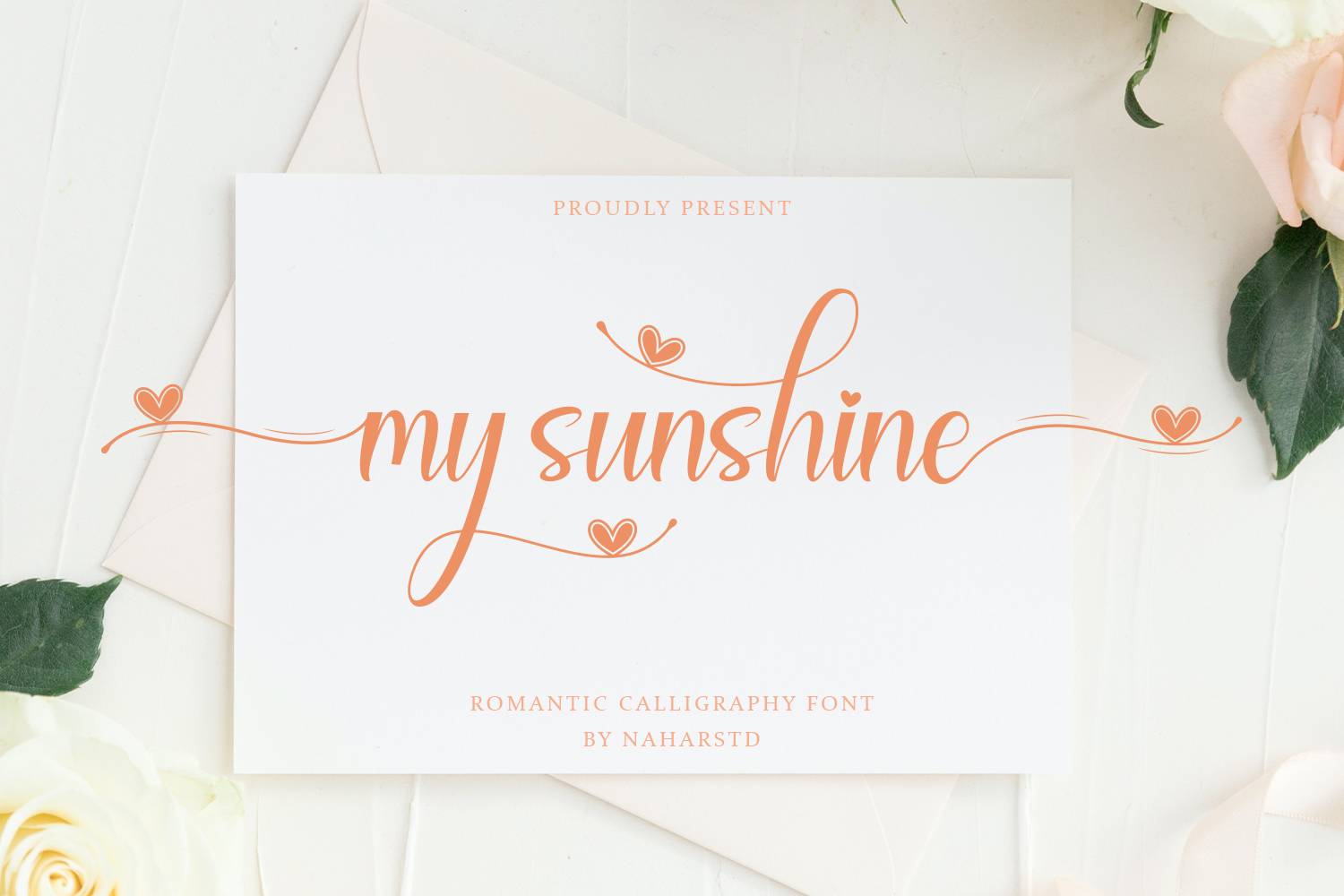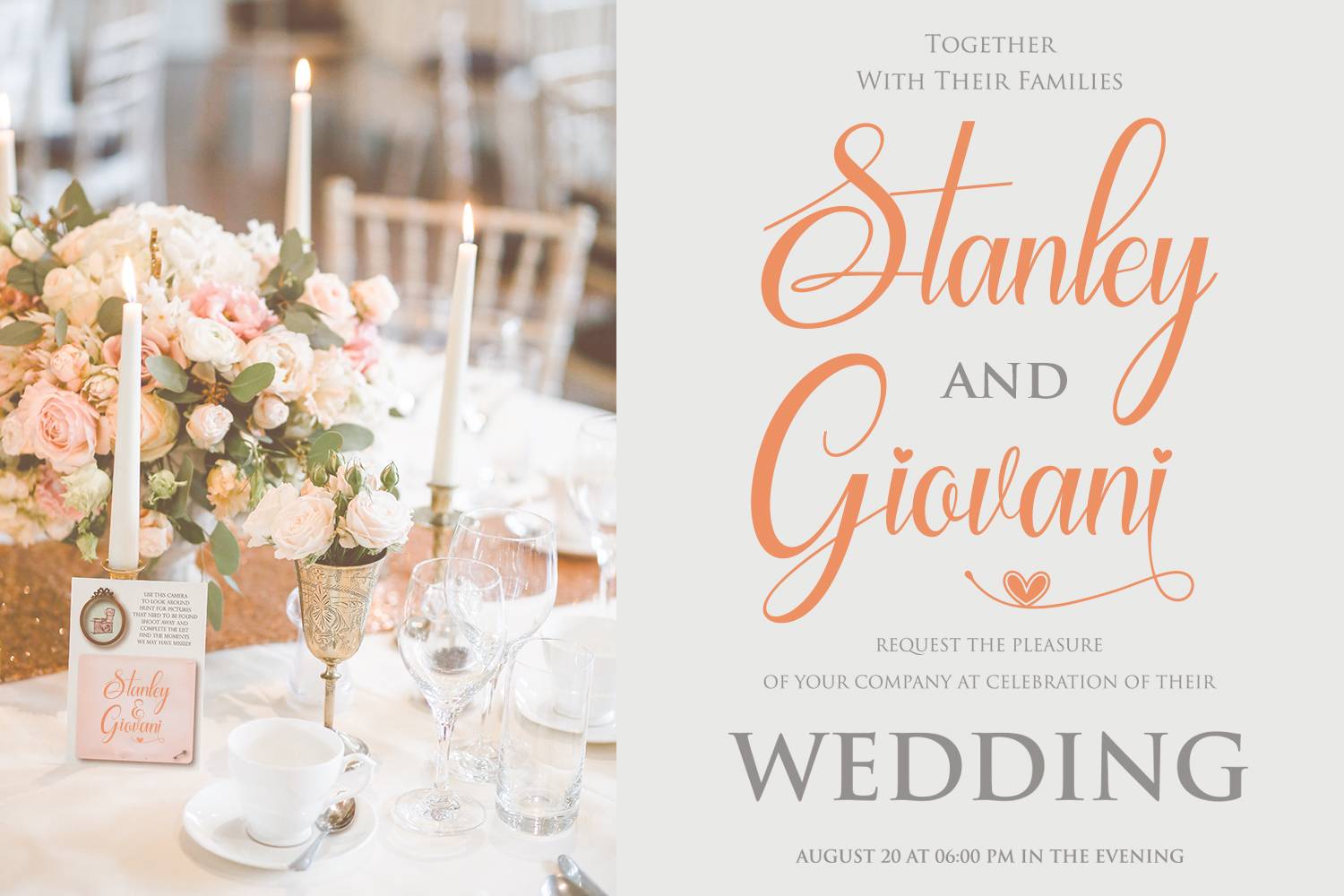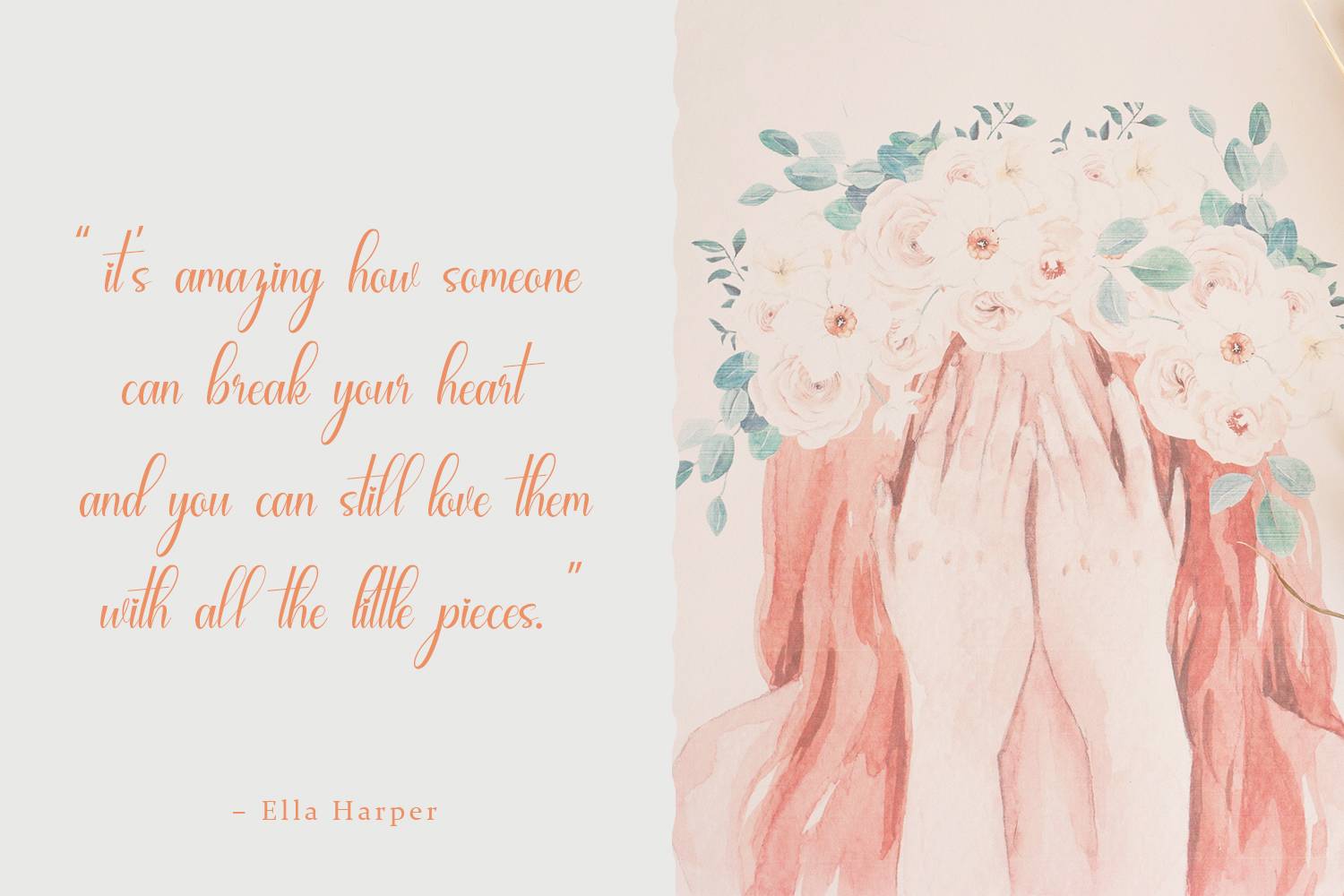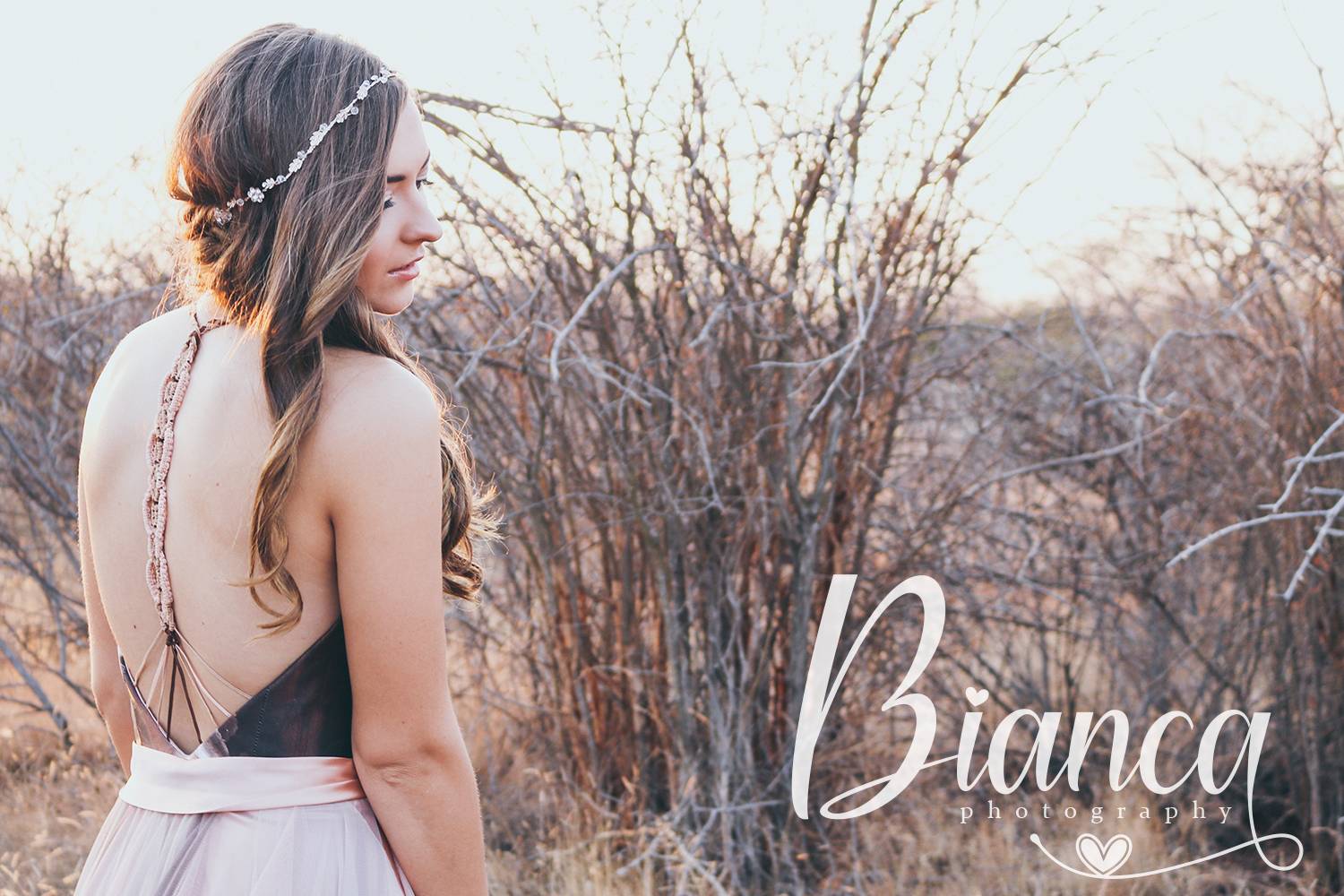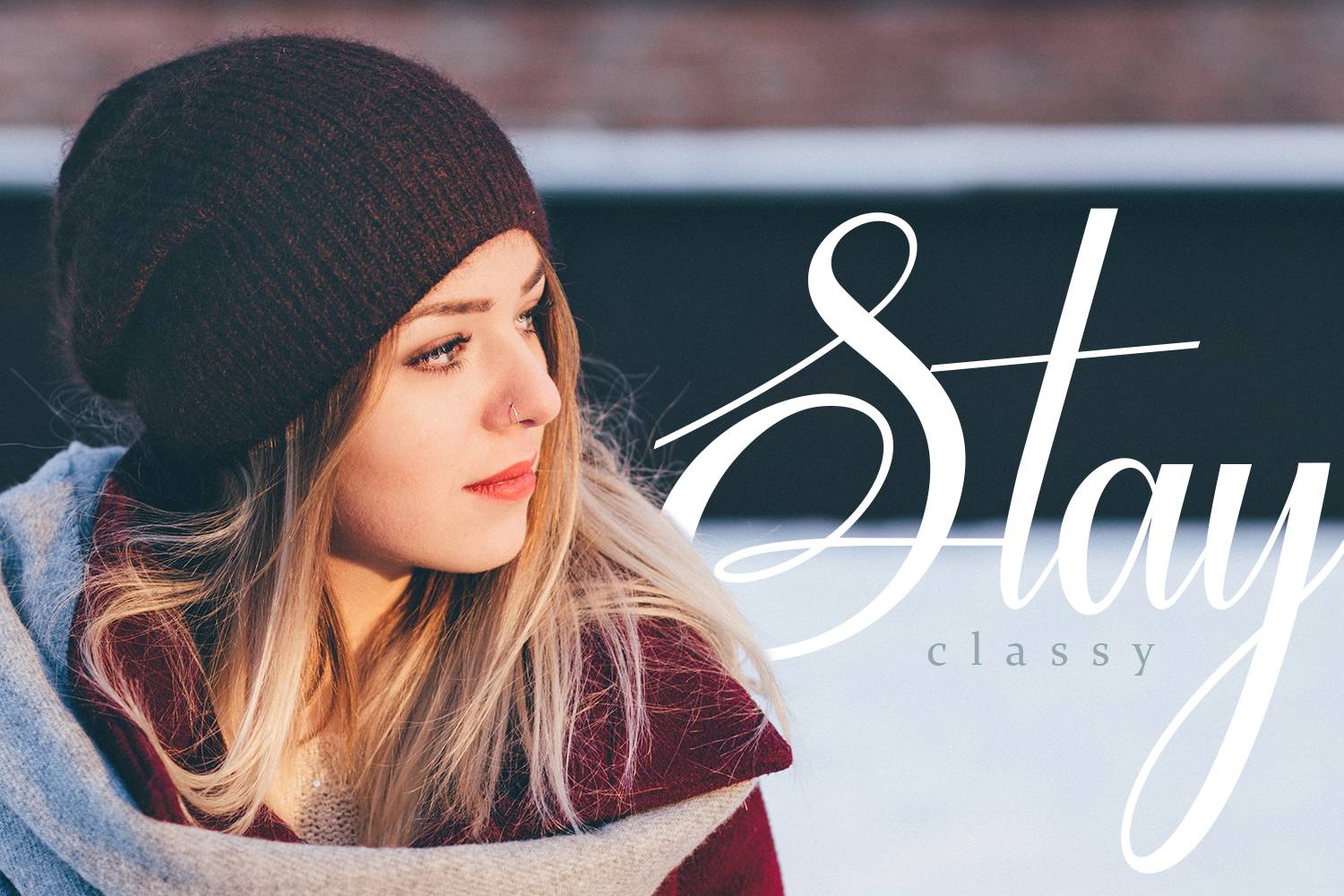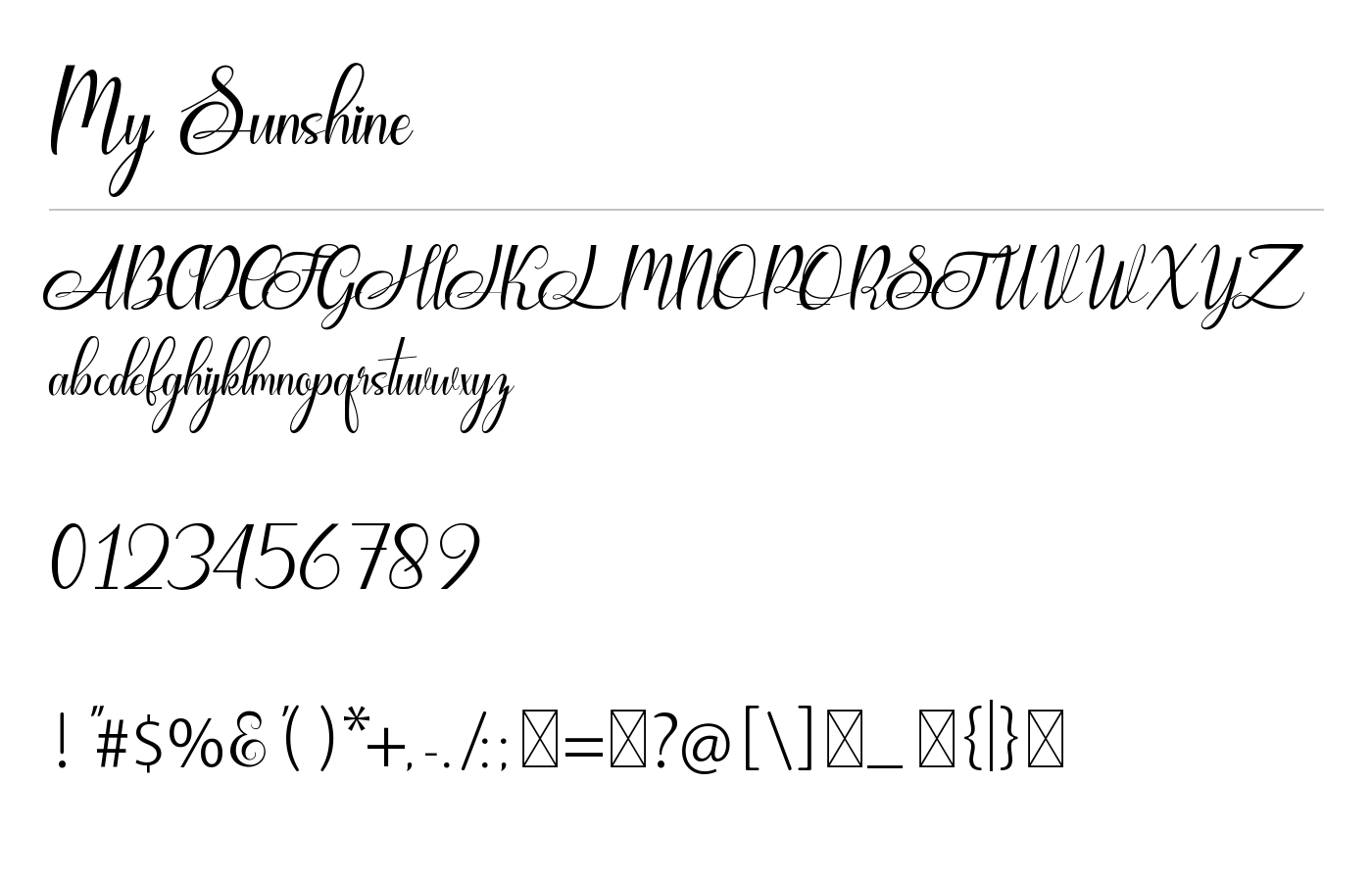
My Sunshine is an elegant script font characterized by its slender strokes and delicate, flowing letterforms that convey a sense of sophistication and charm. Its high contrast and graceful curves make it ideal for luxury branding, invitations, and feminine-focused designs where a stylish, personal touch is desired. This font works beautifully in headlines and logos, adding a refined, romantic feel without overwhelming the design.
My Sunshine Font
About My Sunshine Font
| Font family | My Sunshine Font |
| Designer | Nanda Hardiansyah | Naharstd |